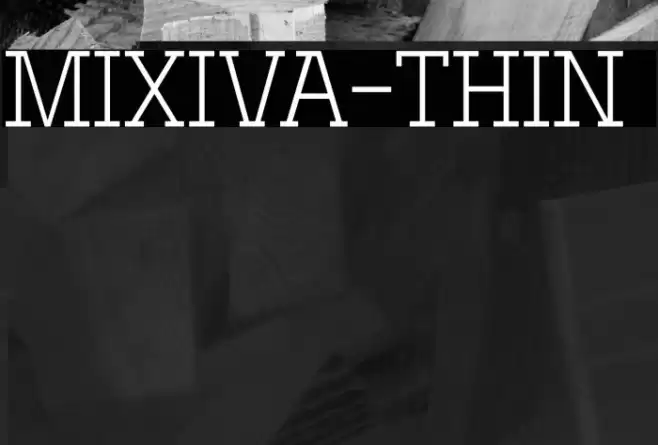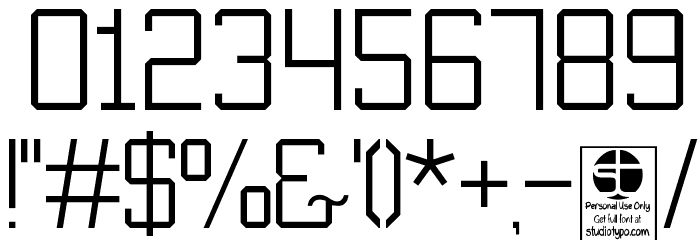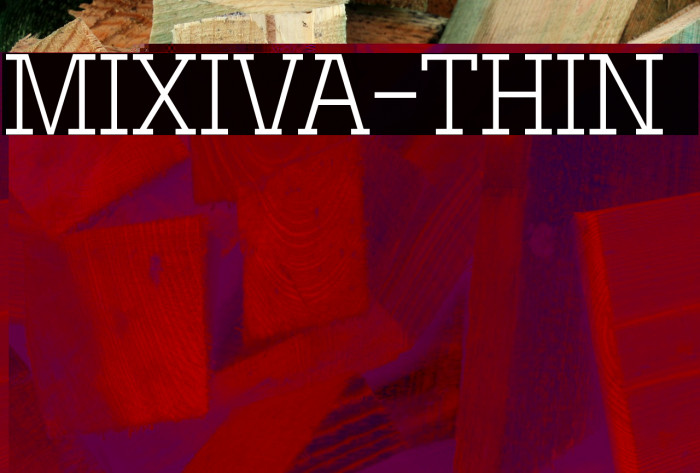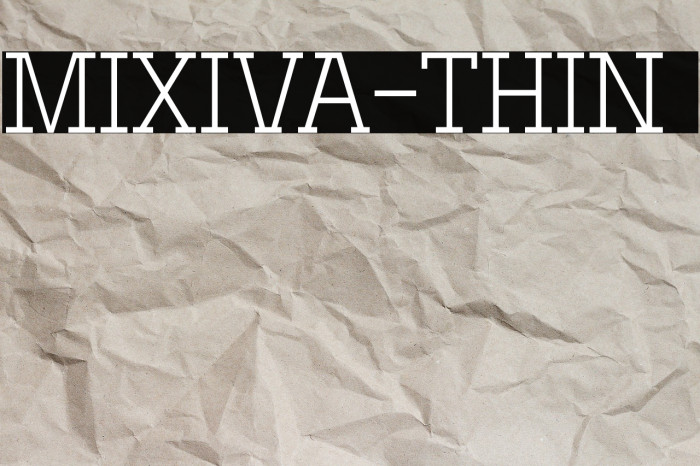
MIXIVA-THIN demo Font
MIXIVA-THIN demo Description
This font features a geometric and modern design with a monospaced style, characterized by its thin lines and uniform stroke width. The uppercase letters are tall and structured, giving a sense of precision and clarity. The numerals and special characters maintain the same geometric consistency, making it ideal for technical or digital-themed projects. The overall appearance is clean and minimalistic, suitable for conveying a contemporary and professional look.
A geometric, monospaced font with thin lines and a modern aesthetic from Old fashioned fonts.
- Proposed Projects: Ideal for technical documents, coding interfaces, digital displays, and modern branding.
- Weight: Light
- Use Case: Headlines, Coding, Technical documents